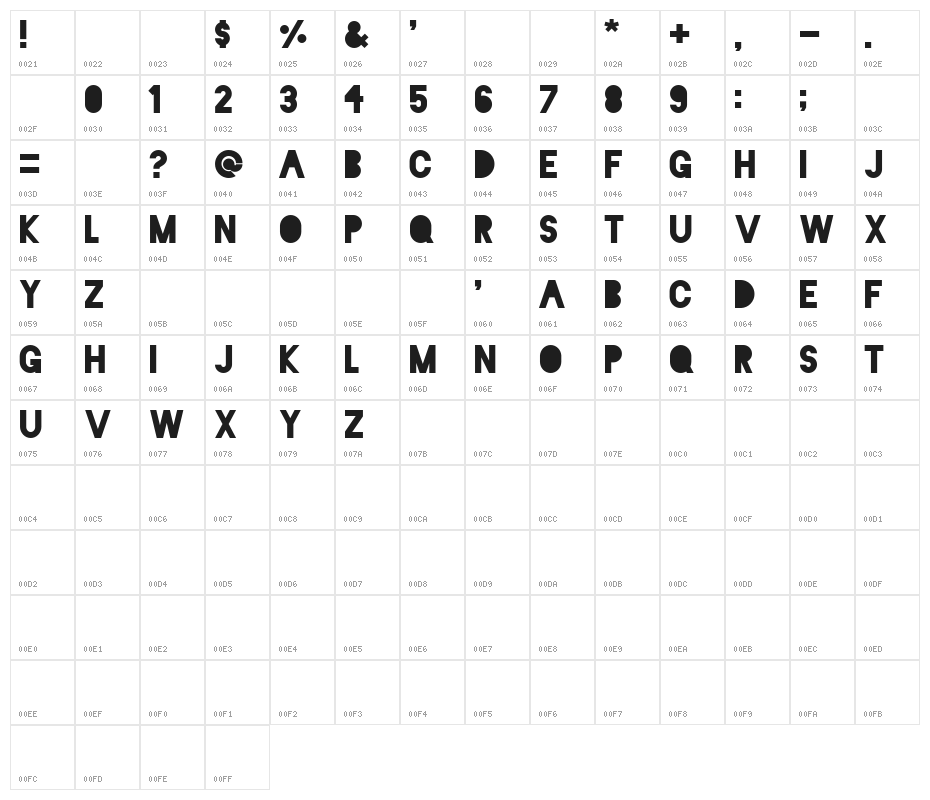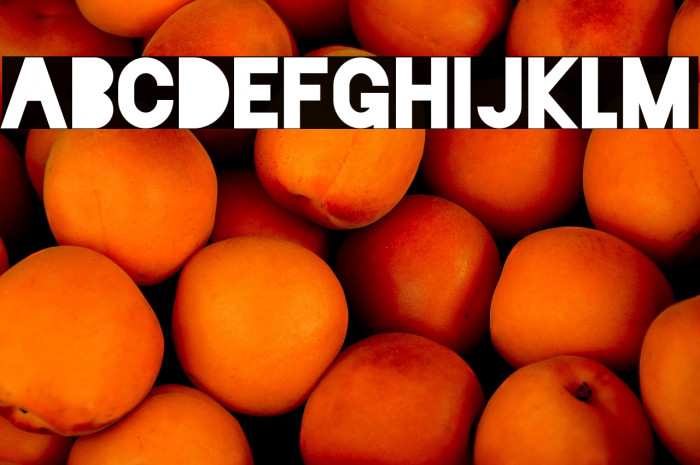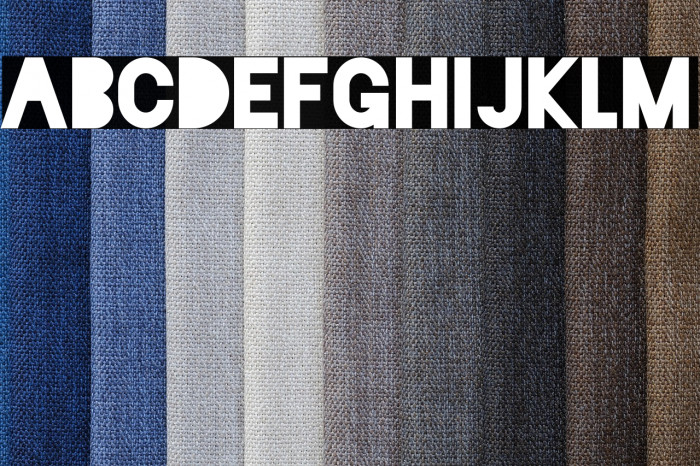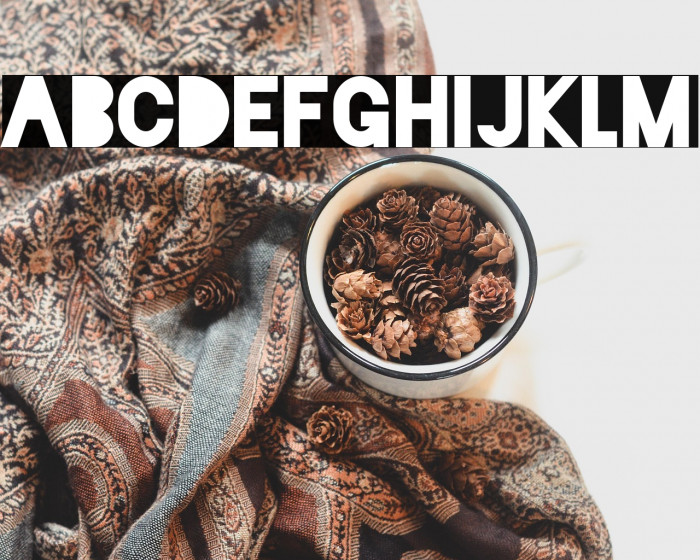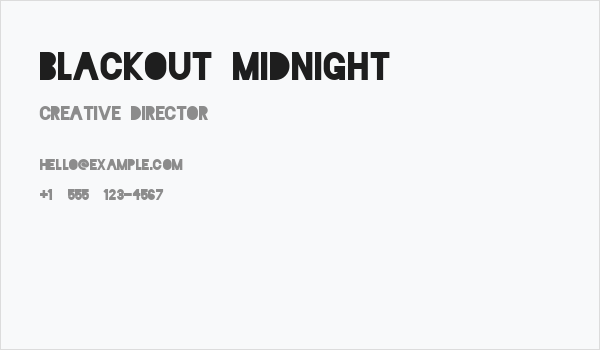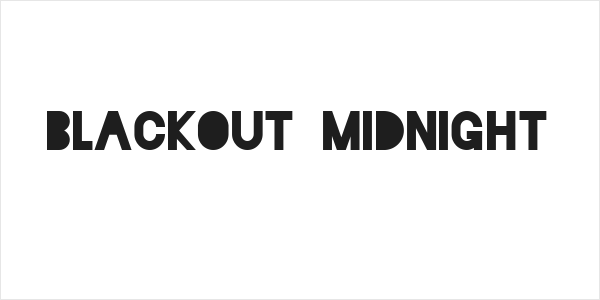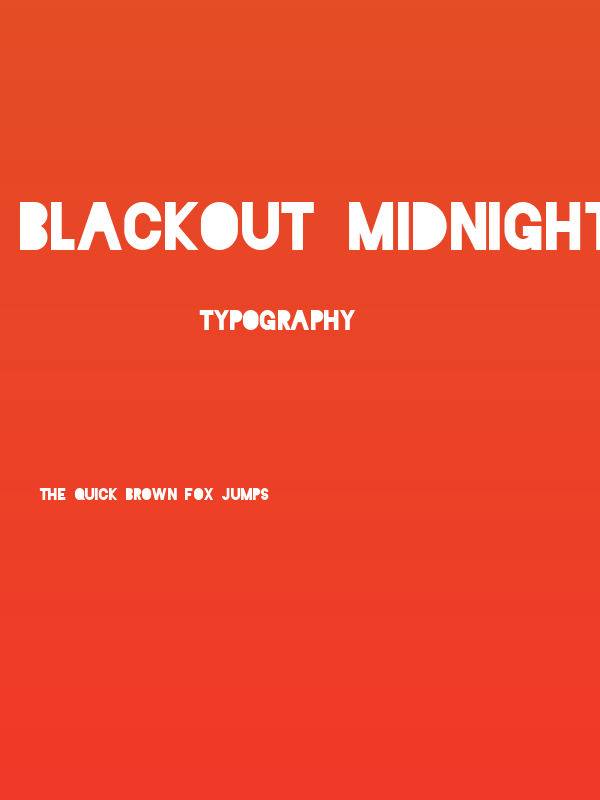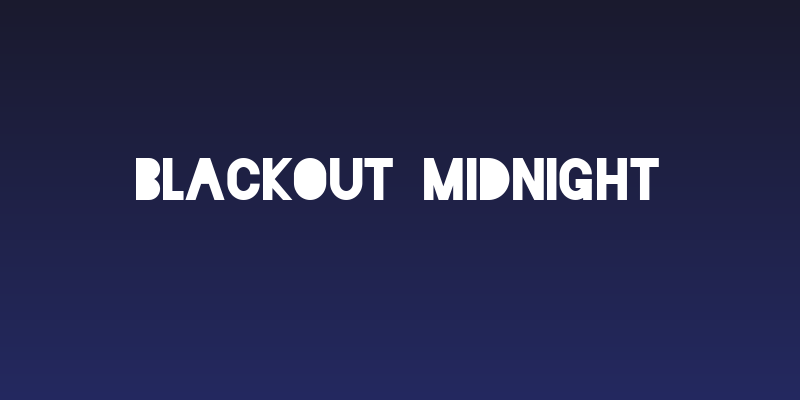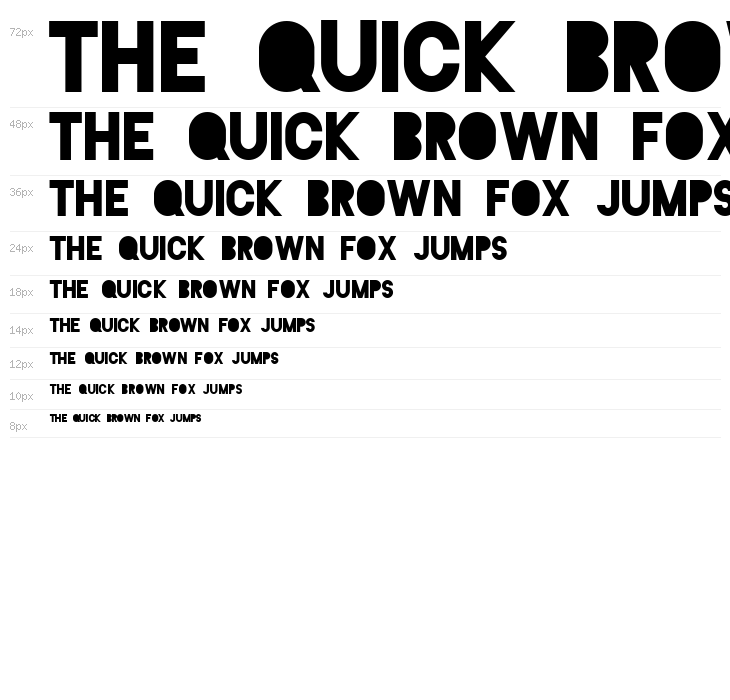
Blackout Midnight Font
Blackout Midnight Description
This font features bold, geometric letterforms with a strong presence. The characters are constructed with thick strokes and minimal contrast, giving them a solid and impactful appearance. The uppercase letters are particularly striking, with a modern and assertive style. The numbers and special characters maintain the same boldness, ensuring consistency across all glyphs. The overall design is clean and straightforward, making it suitable for attention-grabbing headlines and statements.
| Proposed Projects | Ideal for posters, headlines, branding, and any project requiring a bold statement. |